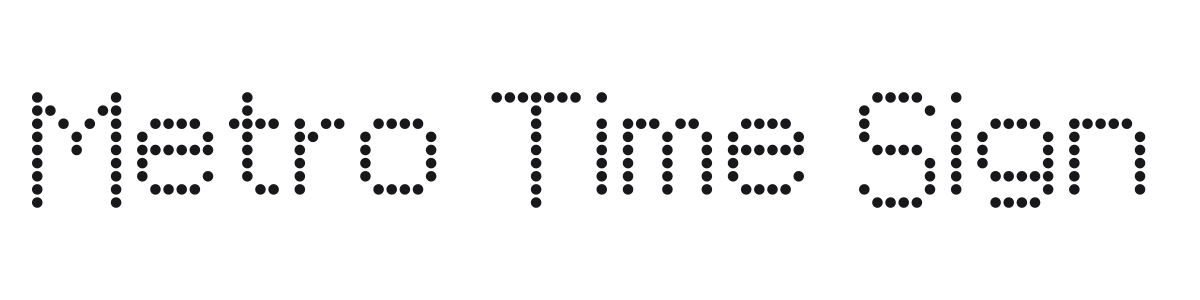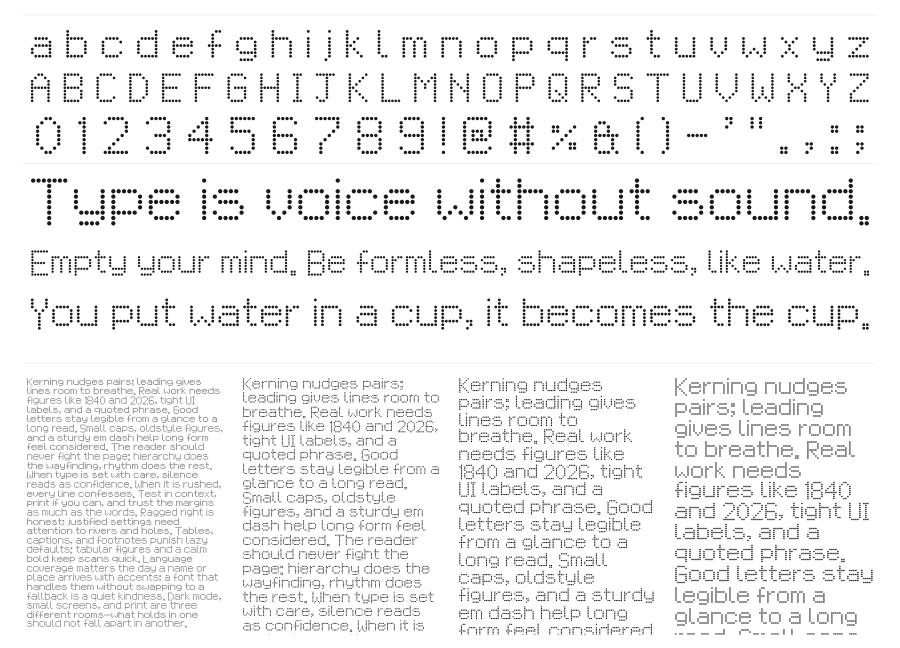
Metro Time Sign
Metro Time Sign is a dot-matrix display font built from uniform circular dots arranged on a grid, mimicking the LED and electromechanical signboards of transit stations and scoreboards. The construction is purely modular, each character assembled from the same repeating dot unit with consistent spacing throughout. It channels the retro-digital aesthetic of airport departure boards, arcade machines, and stadium displays.